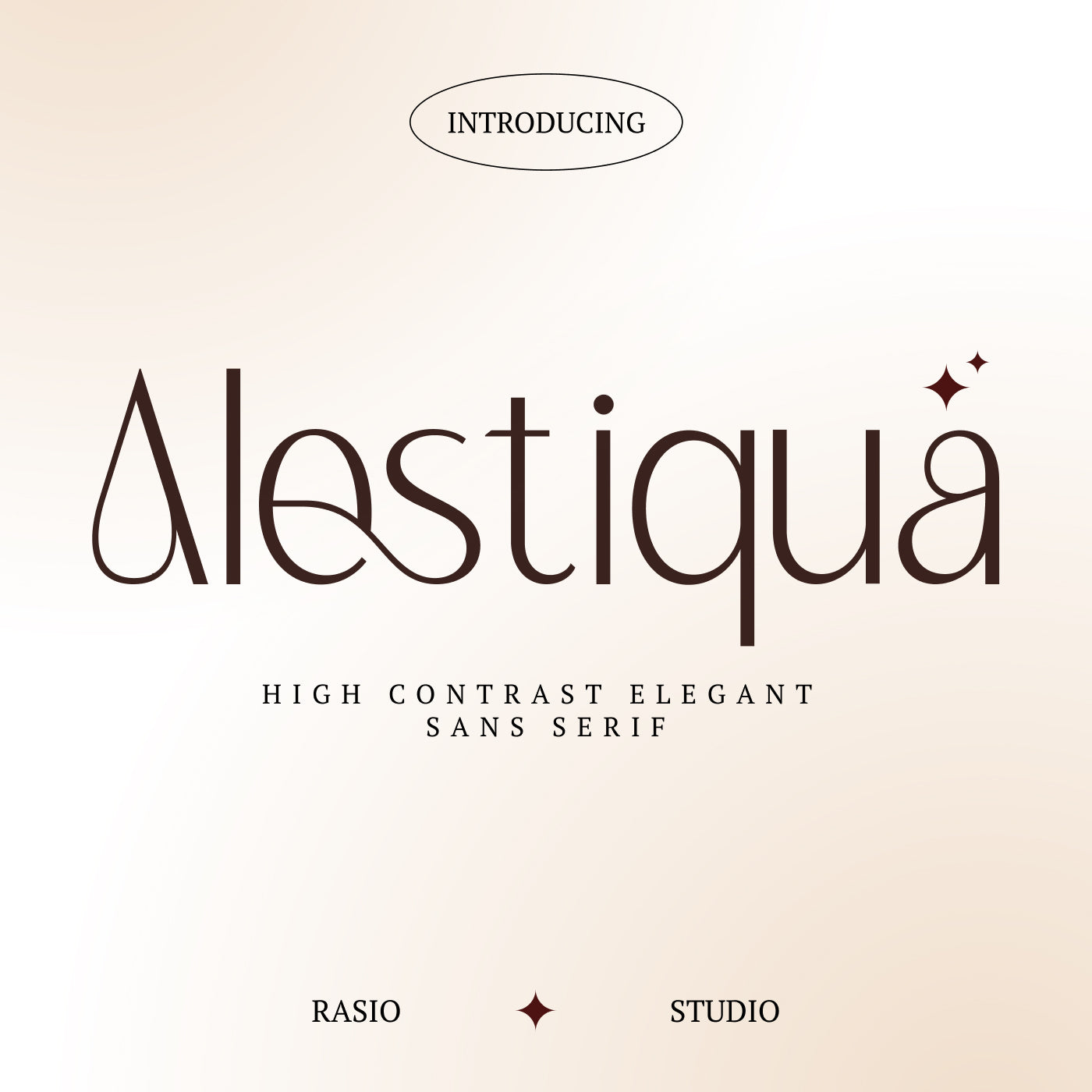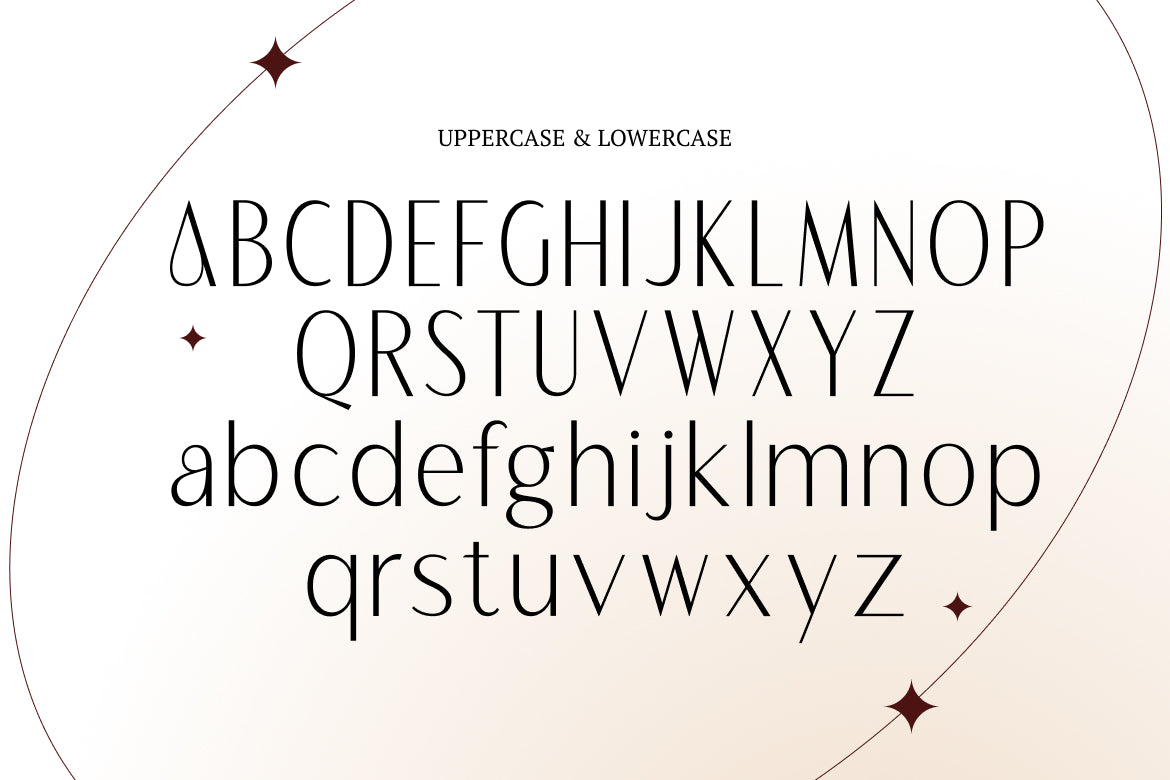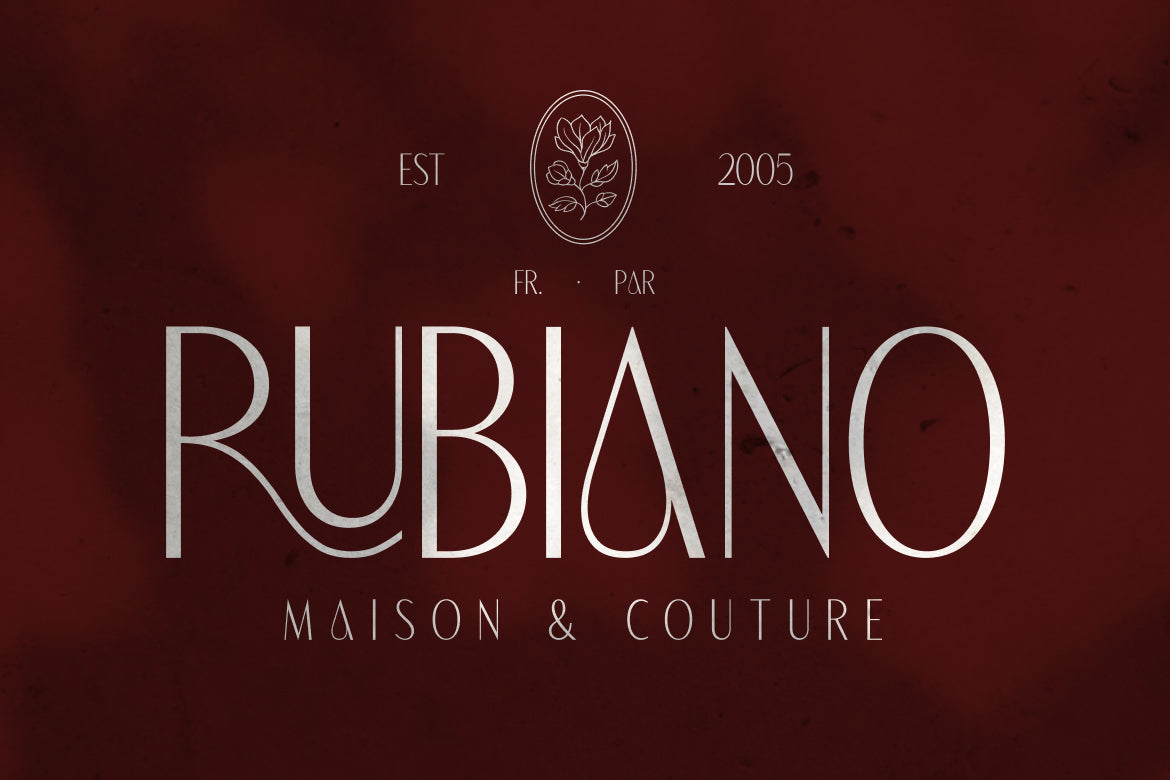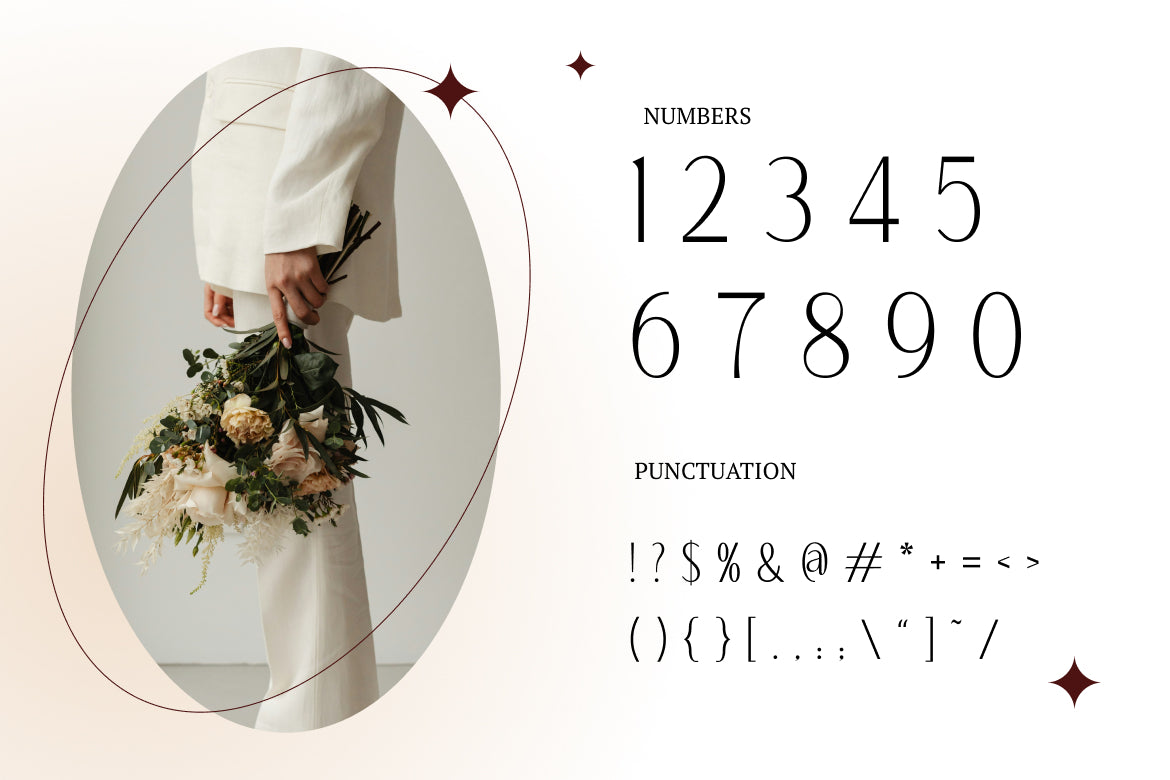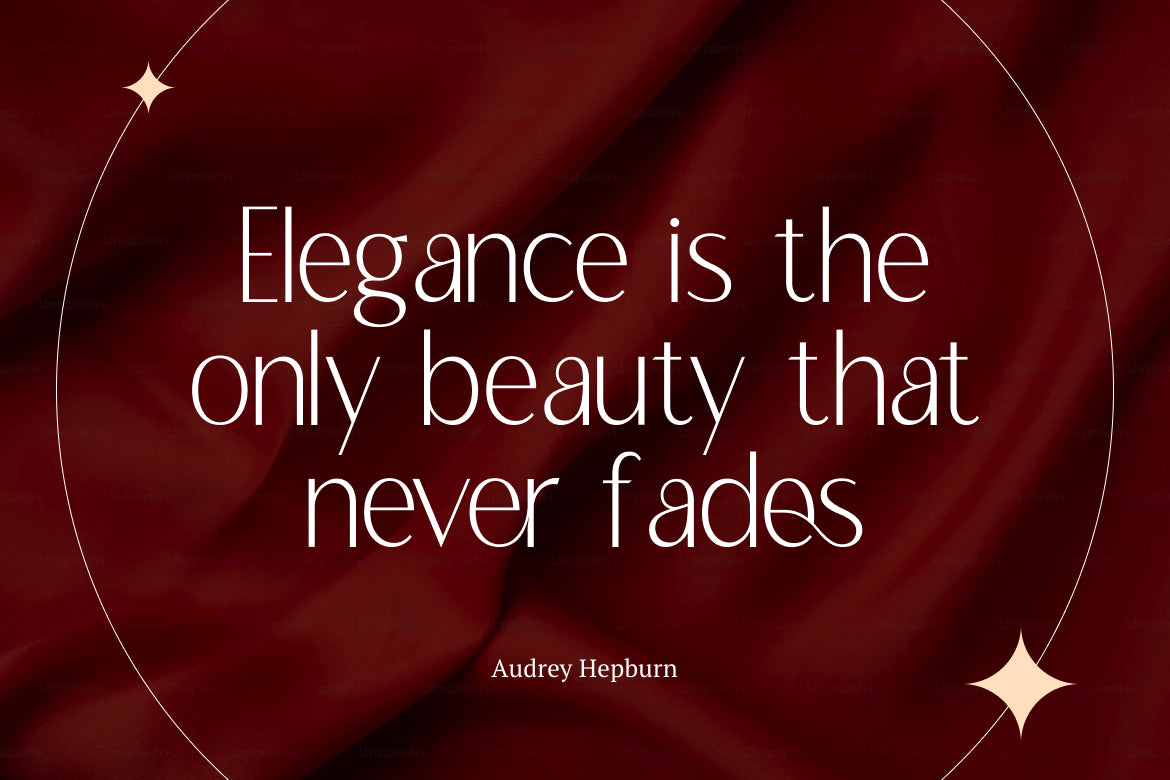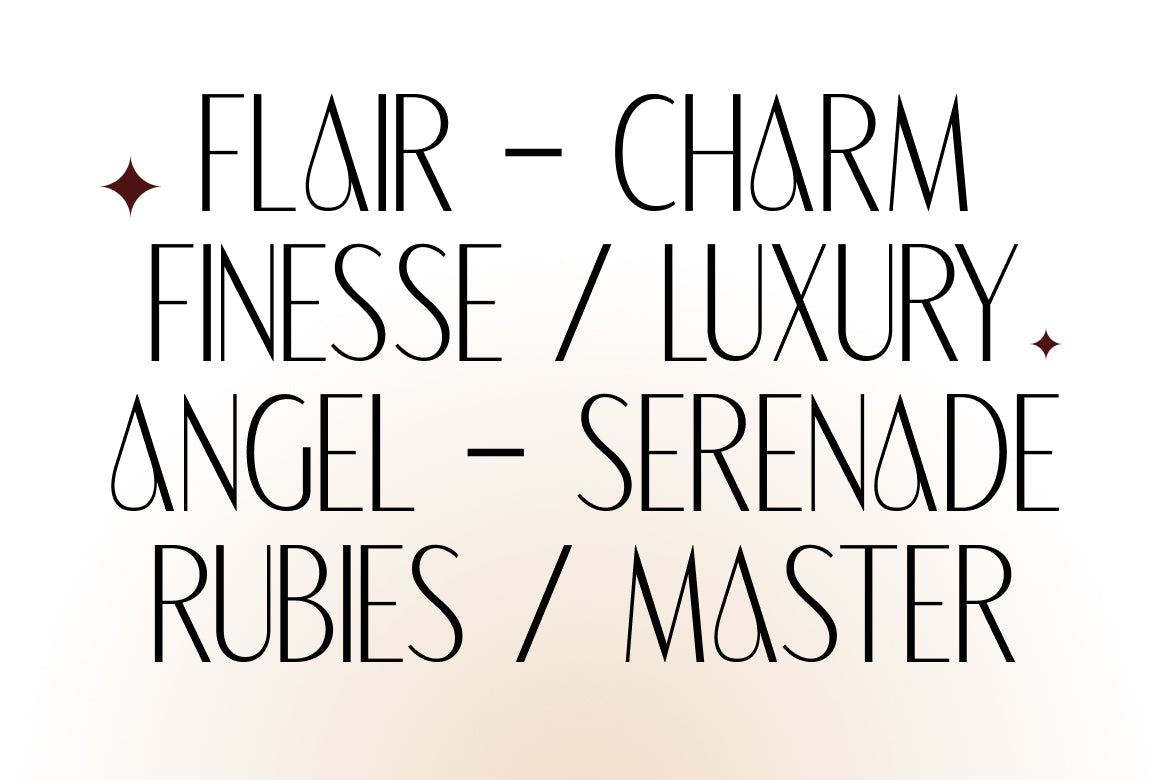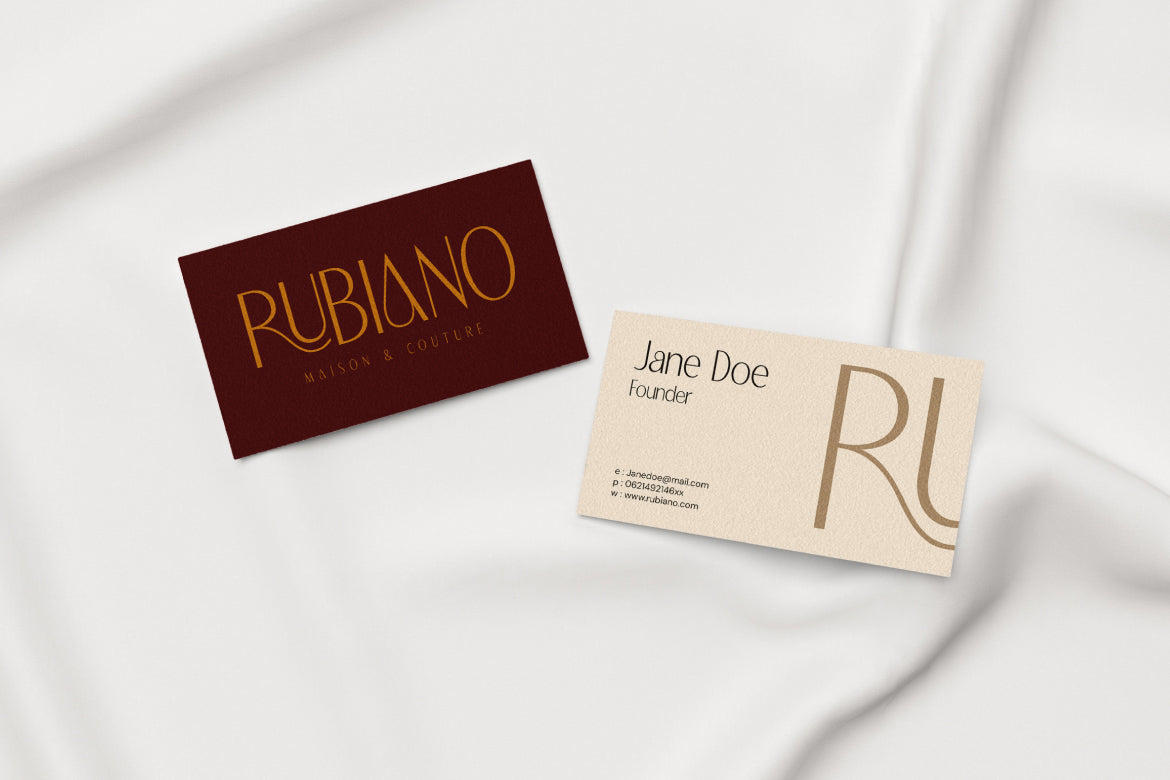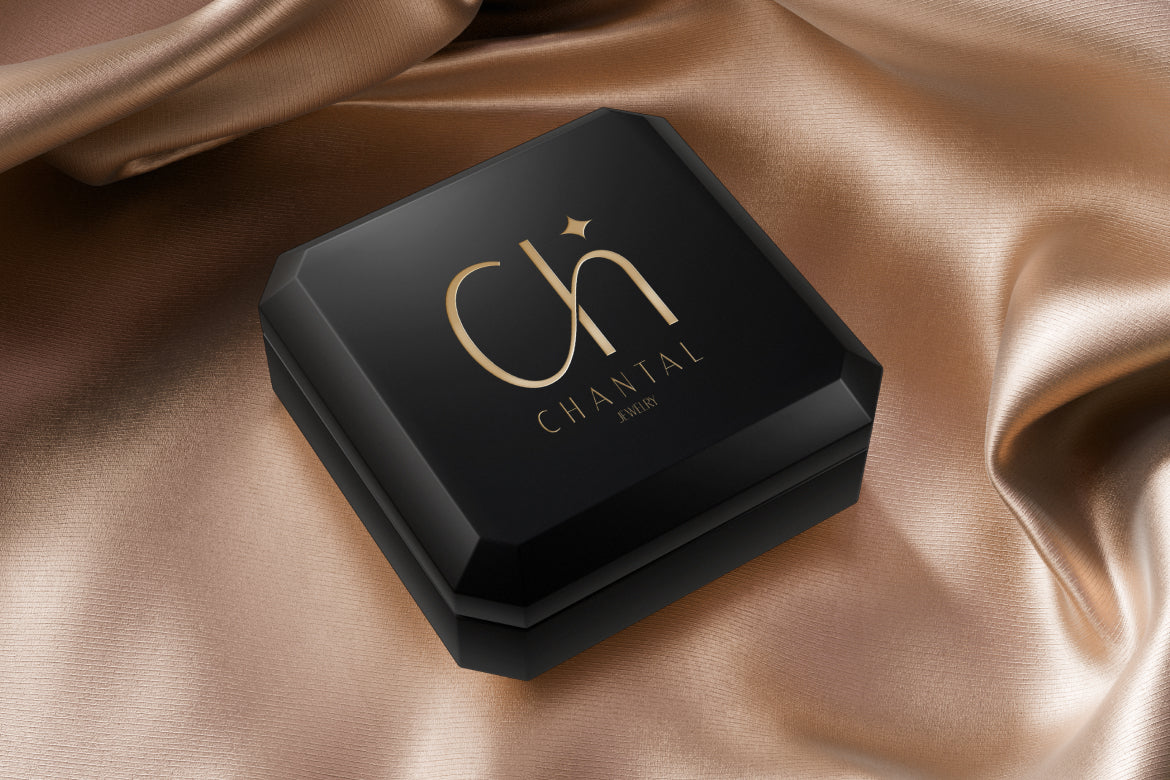
Alestiqua Elegant Sans Serif Font
Alestiqua is a high contrast elegant sans serif font that blends sophistication with modern style. Featuring graceful curves, sharp contrast, and refined letterforms, this typeface is perfect for creating timeless and luxurious designs. Its unique details make it ideal for wedding invitations, fashion editorials, beauty branding, logos, and premium packaging. With a balance of elegance and readability, Alestiqua stands out in both print and digital projects.
Alestiqua Elegant Sans Serif Font is a high contrast typeface that features graceful curves and refined letterforms, available in TTF, OTF, and WOFF formats. It includes both uppercase and lowercase letters, as well as numerals and punctuation, making it suitable for a variety of design projects.